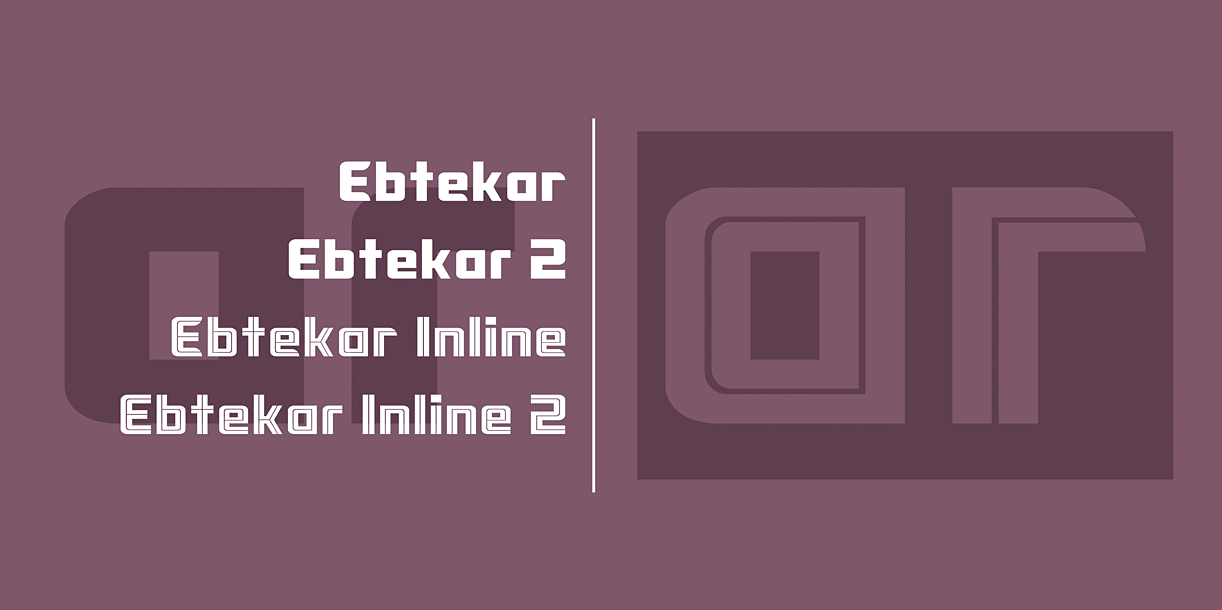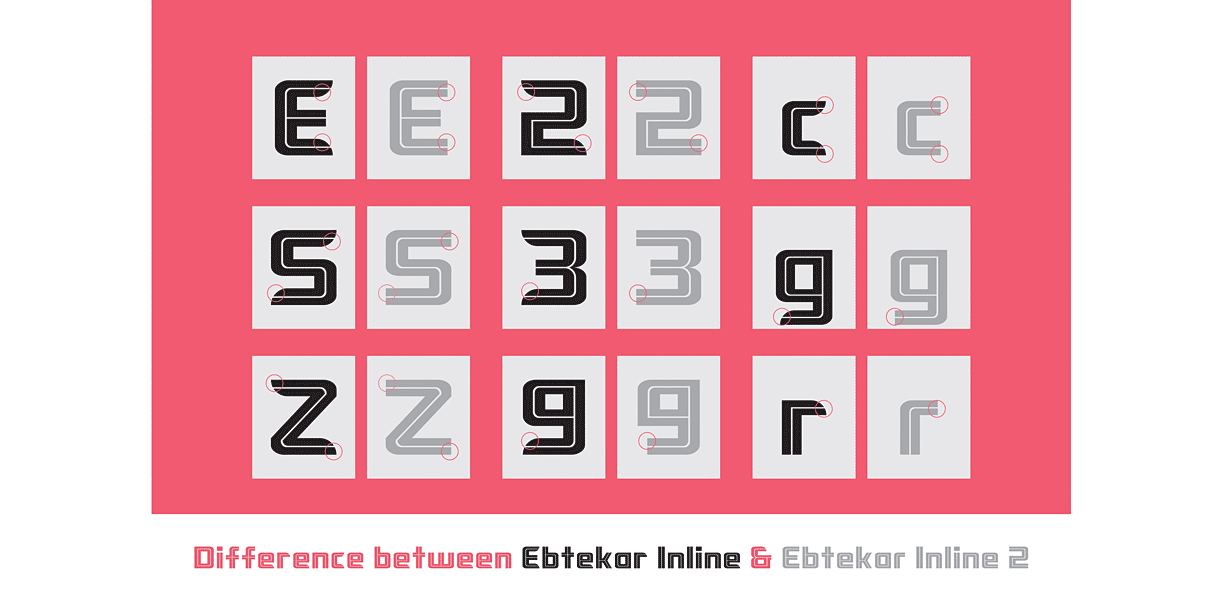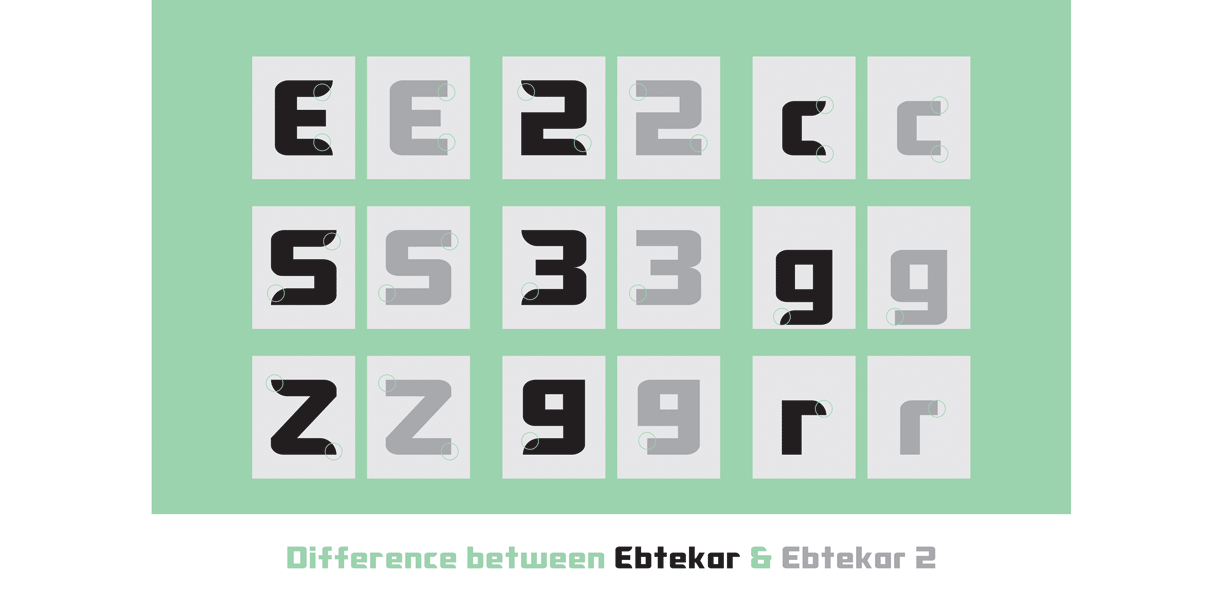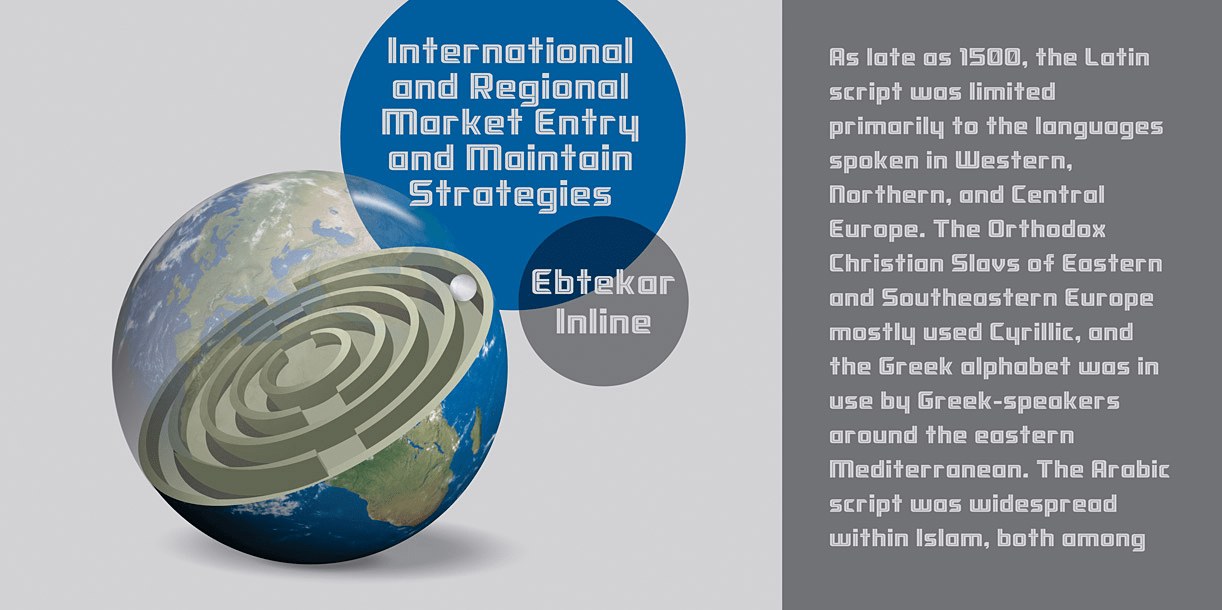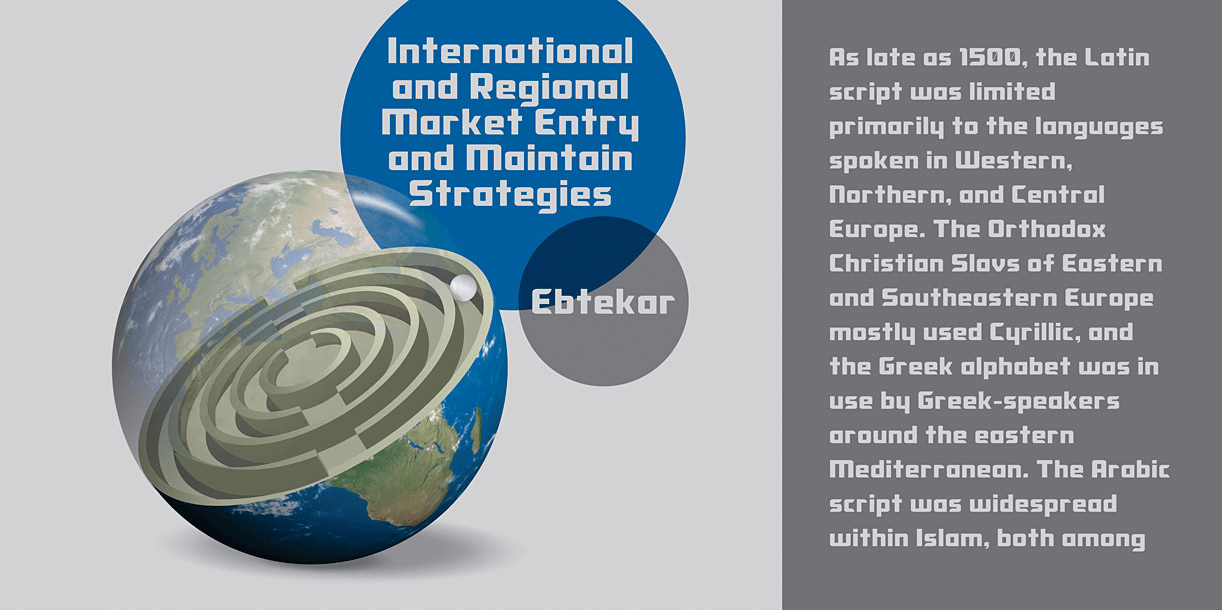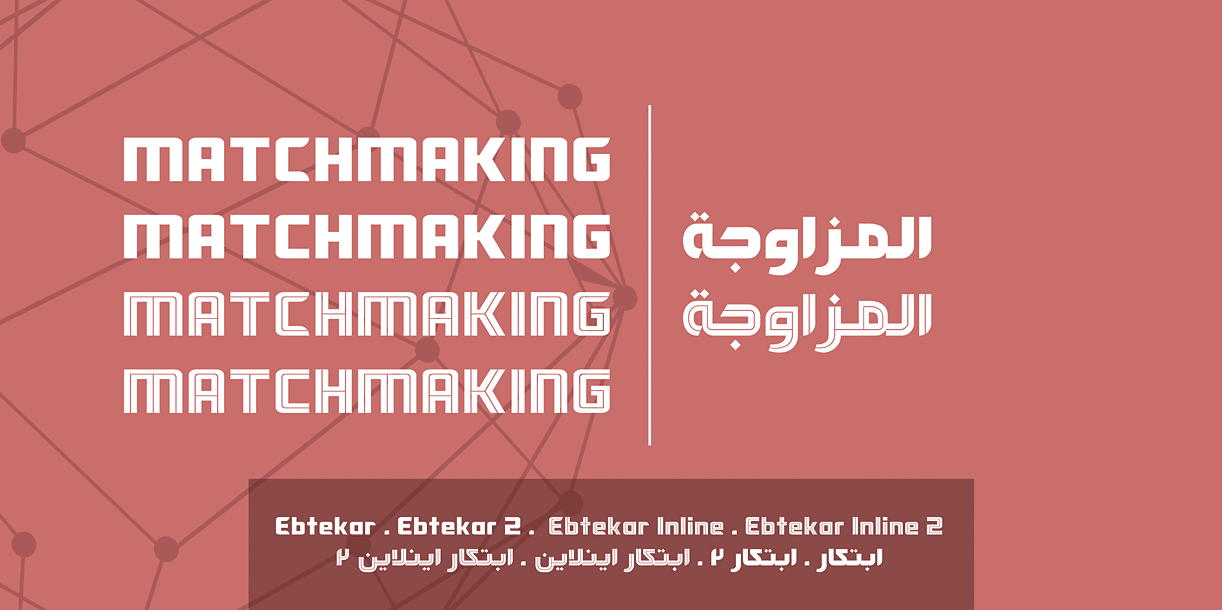
Ebtekar Pro
About Ebtekar Pro
Ebtekar Pro is retro family display font. Its feature is ideal for Typographic Matchmaking Latin and Arabic scripts. Their geometric structure refers to more scientific, industrial and technological atmosphere. Character set of these sans serif fonts…